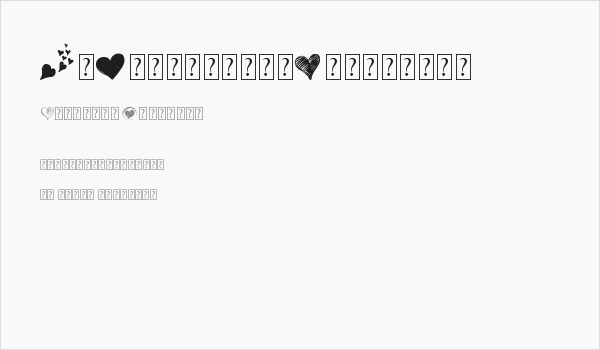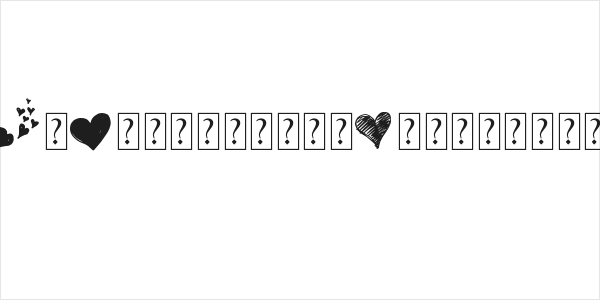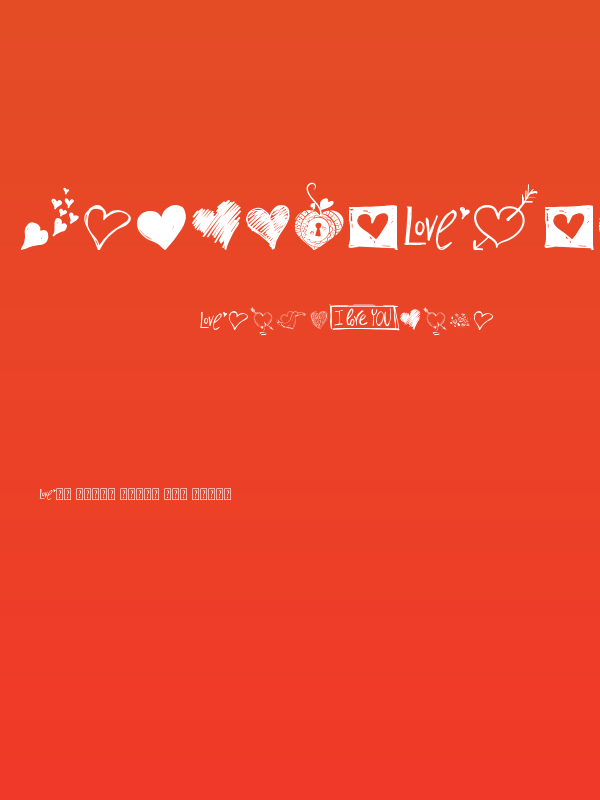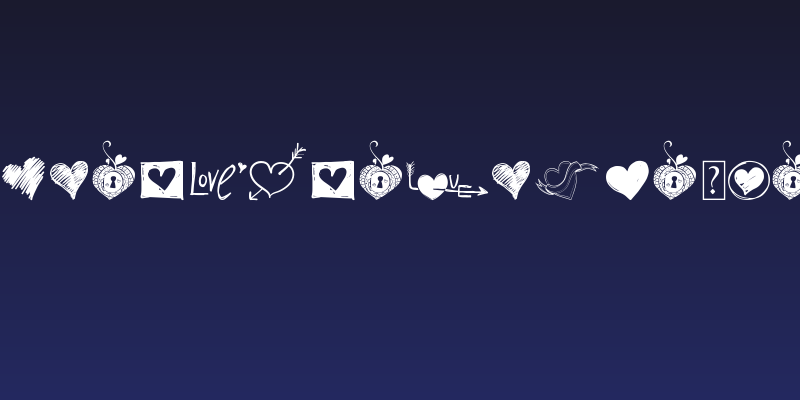
MyValentinesLove-demo Font
MyValentinesLove-demo Description
This is a decorative font featuring a variety of heart-themed symbols and romantic phrases. The design includes hand-drawn elements such as hearts, arrows, and love-related words, creating a playful and whimsical feel. The characters are not traditional letters but rather a collection of artistic symbols that convey a sense of affection and romance. The style is informal and expressive, making it suitable for creative projects that aim to evoke feelings of love and joy.
| Proposed Projects | Ideal for Valentine's Day cards, wedding invitations, love letters, and romantic event promotions. |